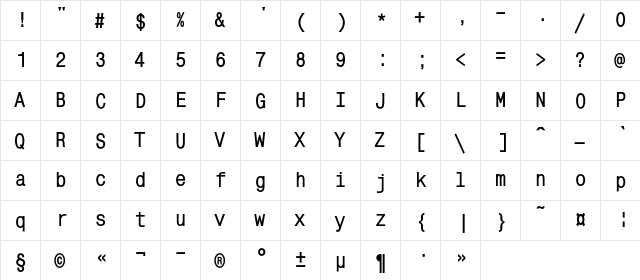
MonoCondensedC Bold
Design Context for MonoCondensedC Typeface
MonoCondensedC brings the precise, column-aligned rhythm of monospaced typography to designs that value technical clarity and systematic order. Its bold stroke weight gives it real presence on the page.
Well-suited to data-driven dashboards, coding tutorials, and any design that wants to reference the world of programming.
Pro Tip: Use MonoCondensedC with slightly increased line-height for extended reading — fixed-width spacing can feel dense in longer passages without extra breathing room.